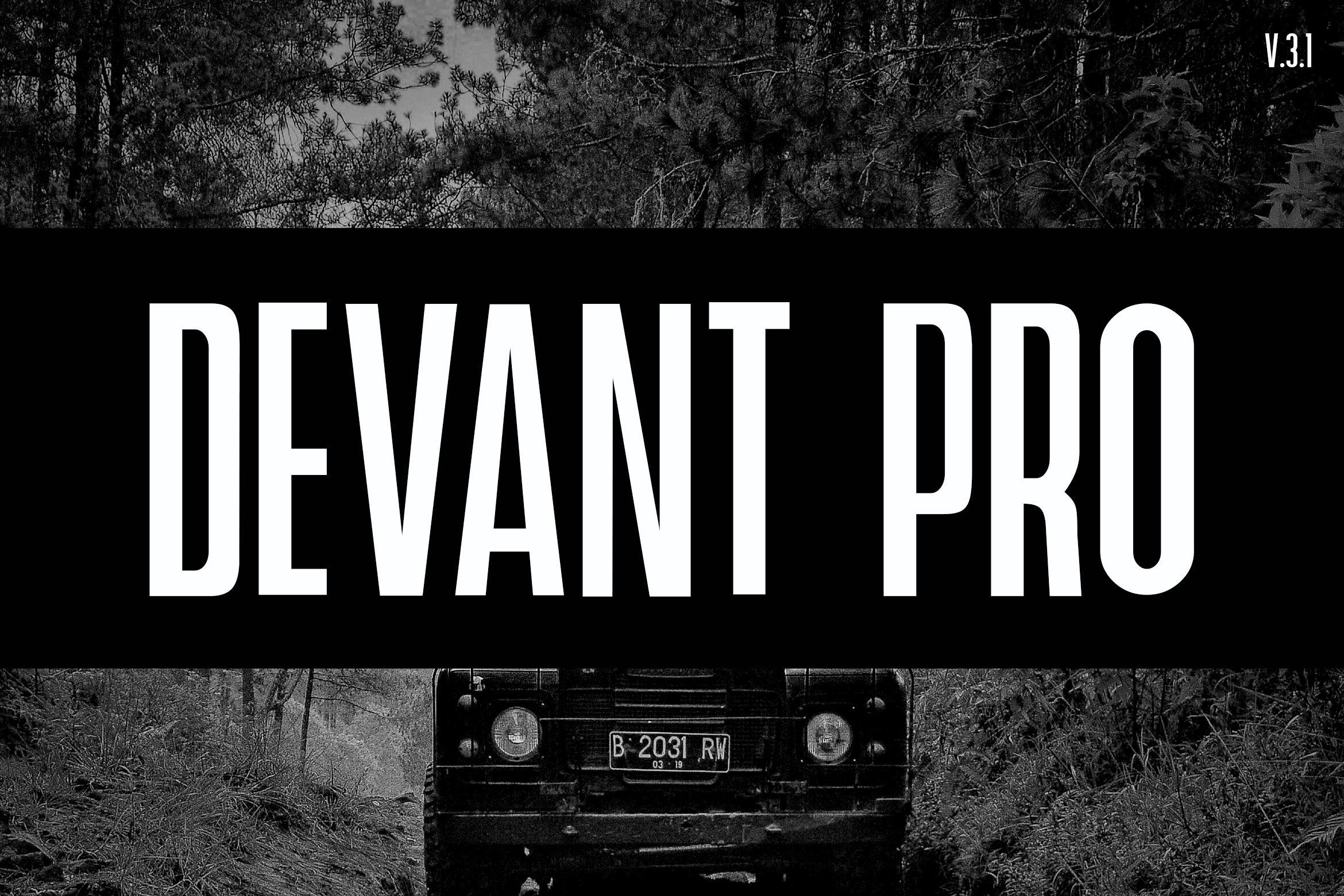
Devant pro - Modern Sans-serif Font
Devant Pro Typeface
Devant pro is a modern Sans Serif typeface very much suitable for Film Posters, headlines, Block letter, Subheading, Logo Designs, Big Banners. Classic & Decorative Typography Web Designs.
09 Font Weights
09 Italics
uppercase and lowercase letters
multi-language support
Alternatives
numbers
punctuation
ligatures